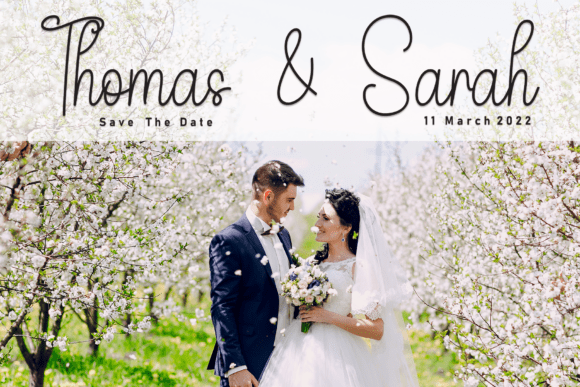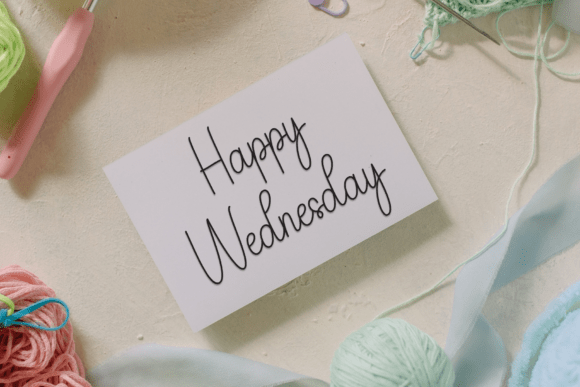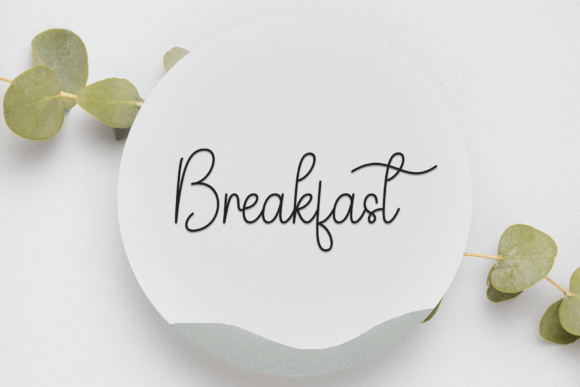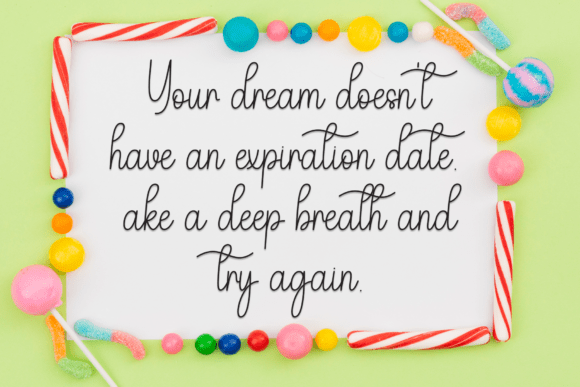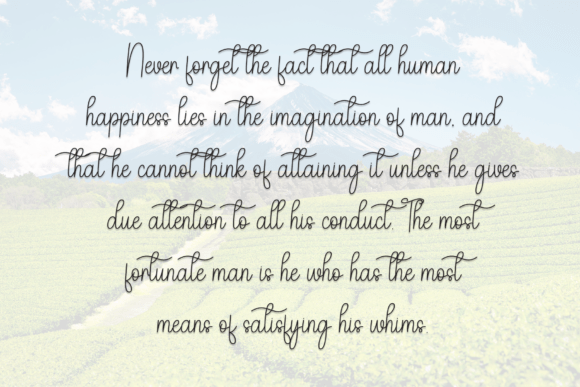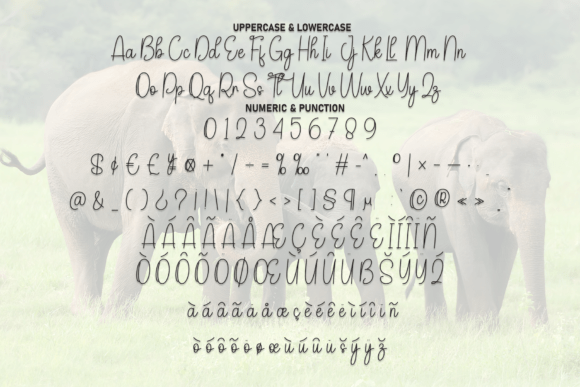
Introducing Elephant Font: A Charming and Fluid Script Font for Creative Projects
Are you looking for a font that can add a touch of playfulness and handmade charm to your designs? Look no further than Elephant Font, a beautiful script font that is perfect for a variety of creative projects. In this article, we’ll take a closer look at the features and benefits of Elephant Font, and explore how it can be used to bring your designs to life.
What is Elephant Font?
Elephant Font is a charming and fluid script font that offers playful, handmade typography. The typeface features long, horizontal monolinear strokes that gracefully connect the letterforms, creating a continuous, ribbon-like rhythm. This unique design gives Elephant Font a soft, approachable personality that is perfect for designs that require a personal touch.
Key Features of Elephant Font
So, what makes Elephant Font so special? Here are just a few of its key features:
- Long, horizontal monolinear strokes: These strokes create a continuous, flowing rhythm that gives Elephant Font its unique charm.
- Small, upright lowercase forms: The lowercase letters in Elephant Font are designed to be small and upright, with subtle loops on the ascenders that add to the font’s playful personality.
- Low-contrast visual balance: Elephant Font has a low-contrast visual balance that emphasizes clarity and readability, making it perfect for use in a variety of design projects.
Elephant Font is an exceptional choice for a variety of creative projects, including:
- Nature-themed children’s books: The playful, handmade feel of Elephant Font makes it perfect for use in children’s books that celebrate the natural world.
- Educational materials: Elephant Font’s clear, readable design makes it an excellent choice for use in educational materials, such as textbooks, workbooks, and activity sheets.
- Artisanal product packaging: The unique, handcrafted feel of Elephant Font makes it perfect for use in packaging for artisanal products, such as handmade crafts, food, and beverages.
- Creative storytelling layouts: Elephant Font’s playful, fluid design makes it an excellent choice for use in creative storytelling layouts, such as those used in graphic novels, comics, and magazines.
Why Choose Elephant Font?
So, why should you choose Elephant Font for your next design project? Here are just a few reasons:
- Unique and eye-catching design: Elephant Font’s unique design makes it stand out from other fonts, ensuring that your designs will grab attention and leave a lasting impression.
- Playful and approachable personality: The playful, handmade feel of Elephant Font makes it perfect for designs that require a personal touch.
- Highly versatile: Elephant Font can be used in a wide range of design projects, from children’s books to packaging and more.
Tips for Using Elephant Font
Here are a few tips for getting the most out of Elephant Font:
- Use it sparingly: Elephant Font’s unique design makes it perfect for use as a headline or title font, but it can also be used sparingly throughout a design to add visual interest.
- Experiment with colors and textures: Elephant Font’s playful, handmade feel makes it perfect for use with bright, bold colors and textures.
- Pair it with other fonts: Elephant Font can be paired with other fonts to create a unique and eye-catching design.
Elephant Font is a charming and fluid script font that offers playful, handmade typography. With its unique design, playful personality, and high versatility, it’s perfect for a wide range of creative projects. Whether you’re designing a children’s book, creating packaging for an artisanal product, or developing a creative storytelling layout, Elephant Font is an excellent choice. So why not give it a try and see how it can bring your designs to life?